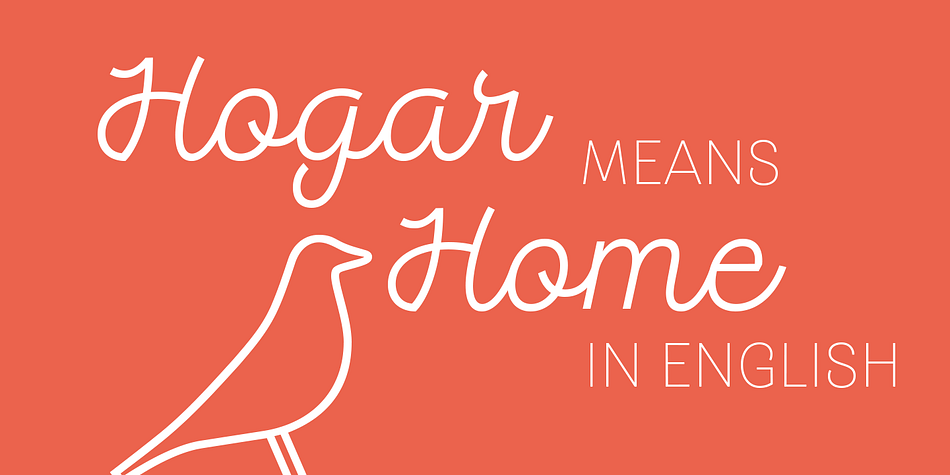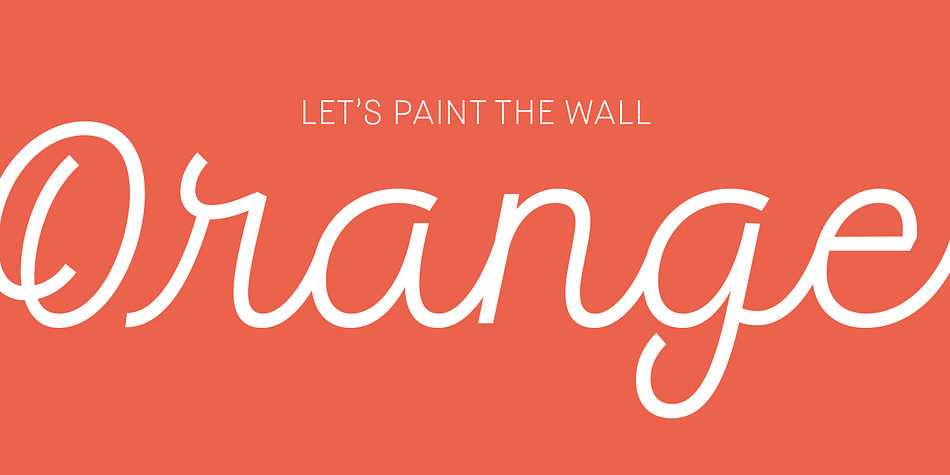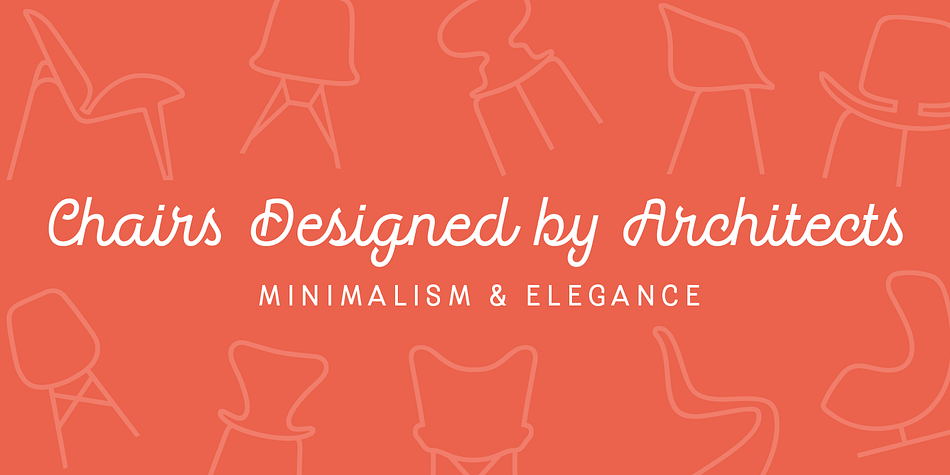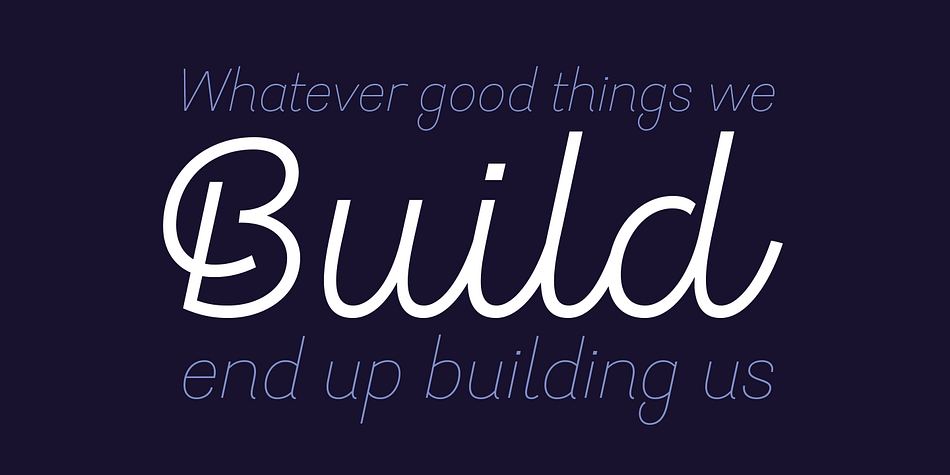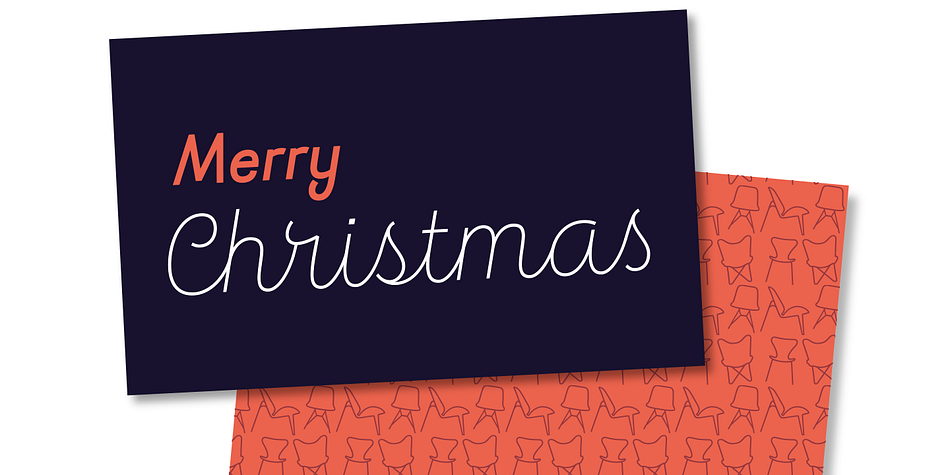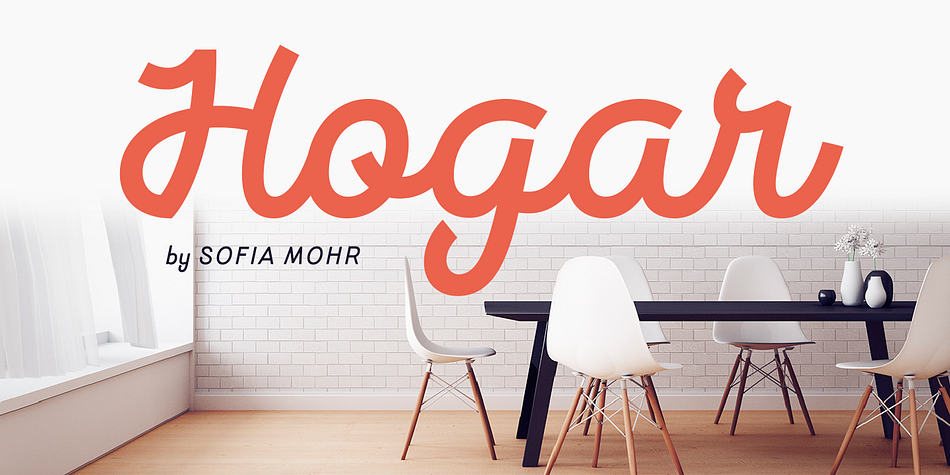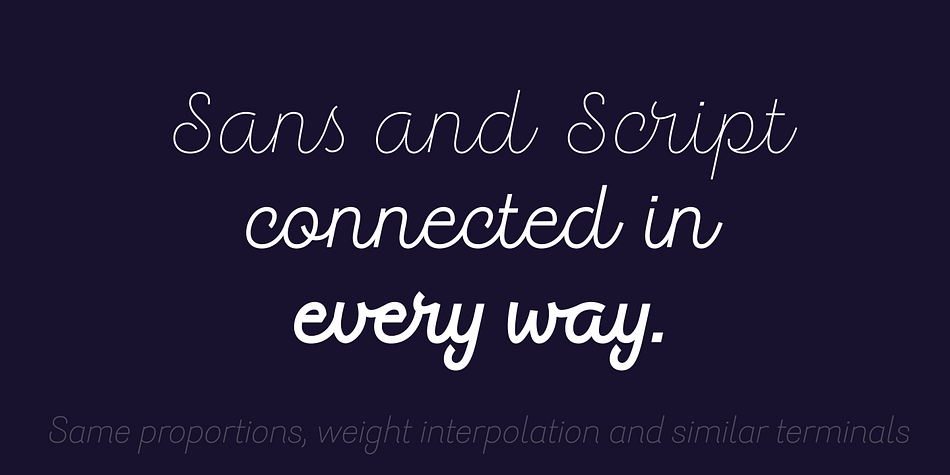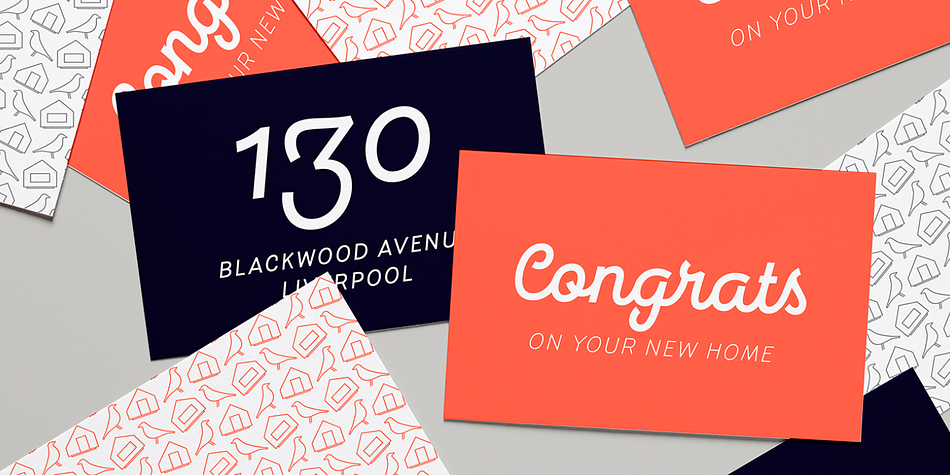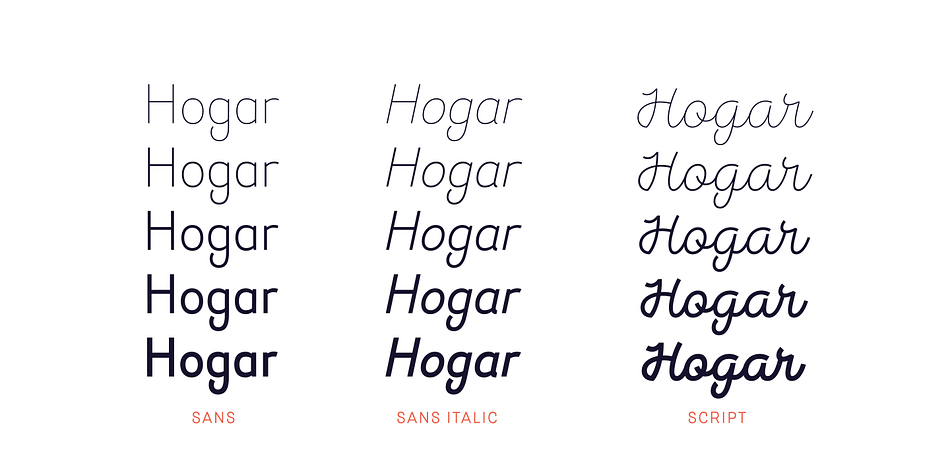
Designed by Sofia Mohr, Hogar is a dingbat, sans serif and script font family. This typeface has sixteen styles and was published by Latinotype.
This font is the result of merging my architecture background and my love for typography, which inspired me to create a system of fonts based on interior architecture design, furniture design and, especially, the love I feel for my home.
The system comes with a monolinear style in sans and script versions, each including 5 weights, that share similar proportions, weight interpolation and terminals. Hogar is basically a sans with script gestures and a script with sans shapes.
In order to make the system more complete, I included an italic version, also in 5 weights, which represents a transition between both main styles. Additionally, I developed a set of monolinear dingbats including some furniture designs by well-known architects.
The family supports more than 200 Latin derived languages.